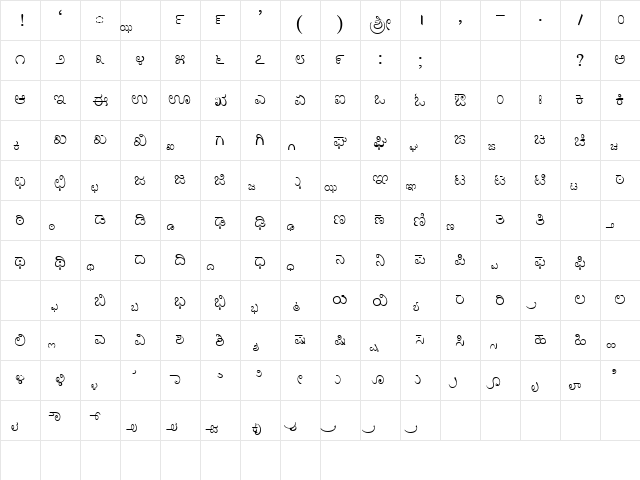
KNW-TTNandi Normal
Design Context for KNW-TTNandi Typeface
KNW-TTNandi is a composed and adaptable typeface that performs quietly and consistently across a wide range of design contexts.